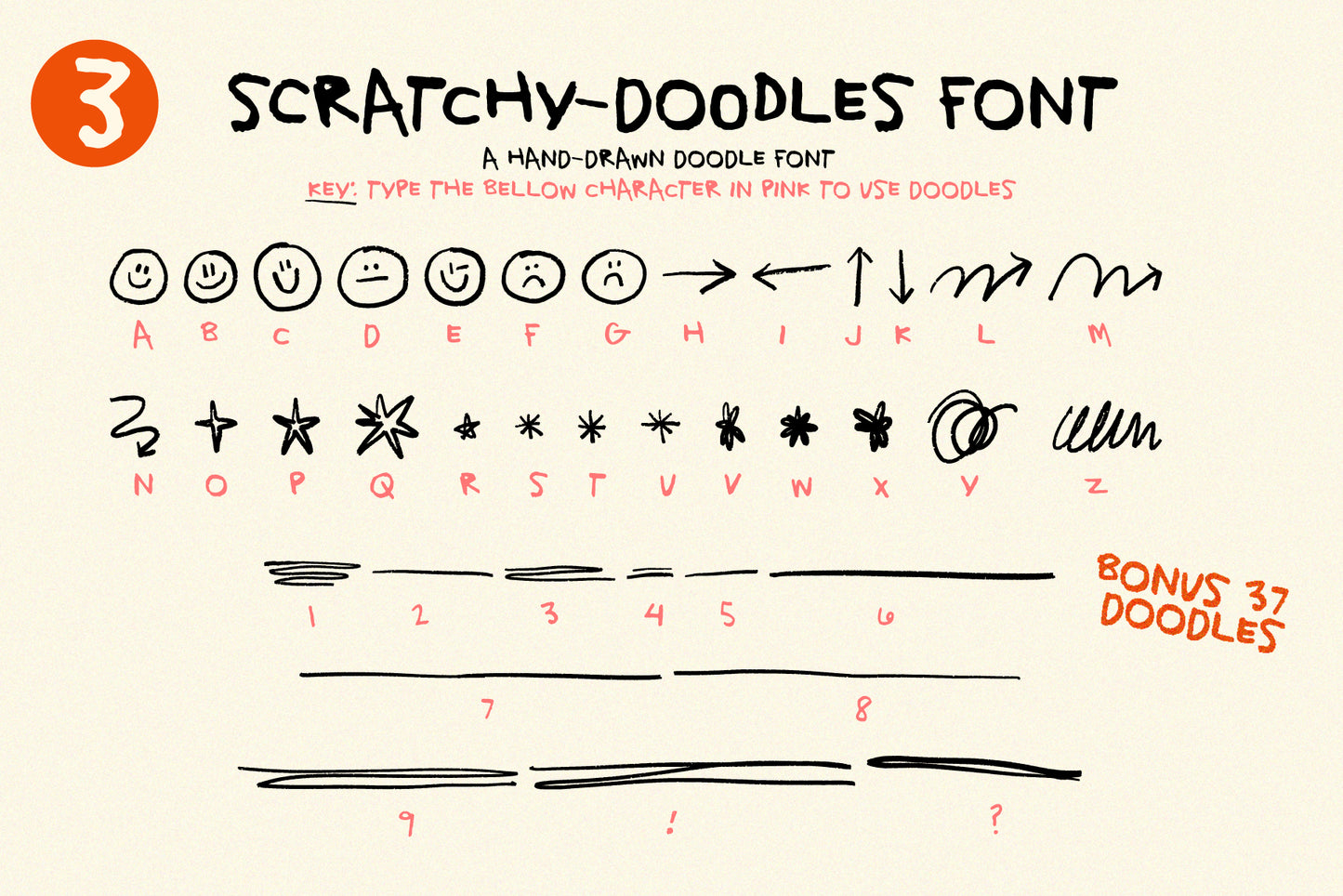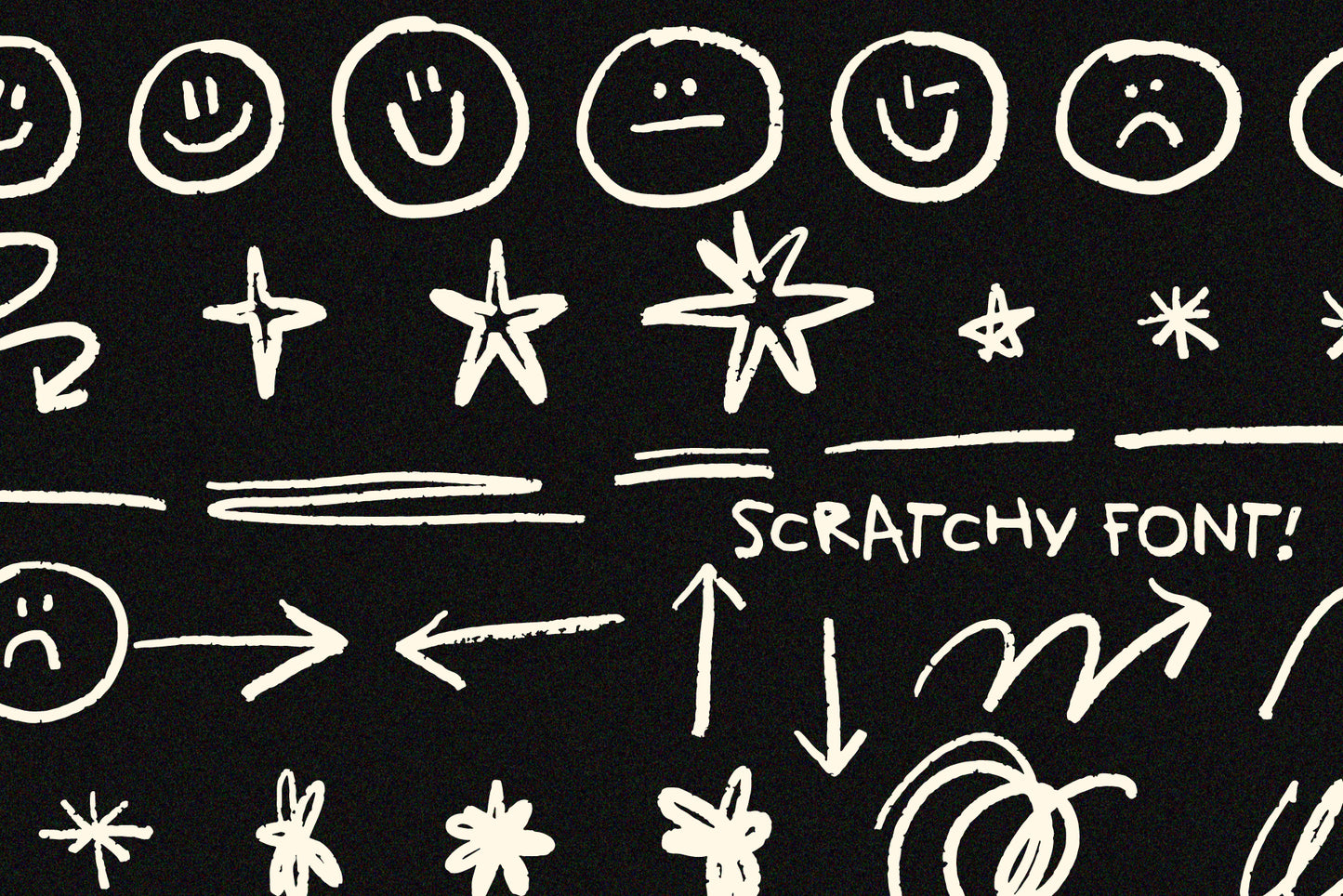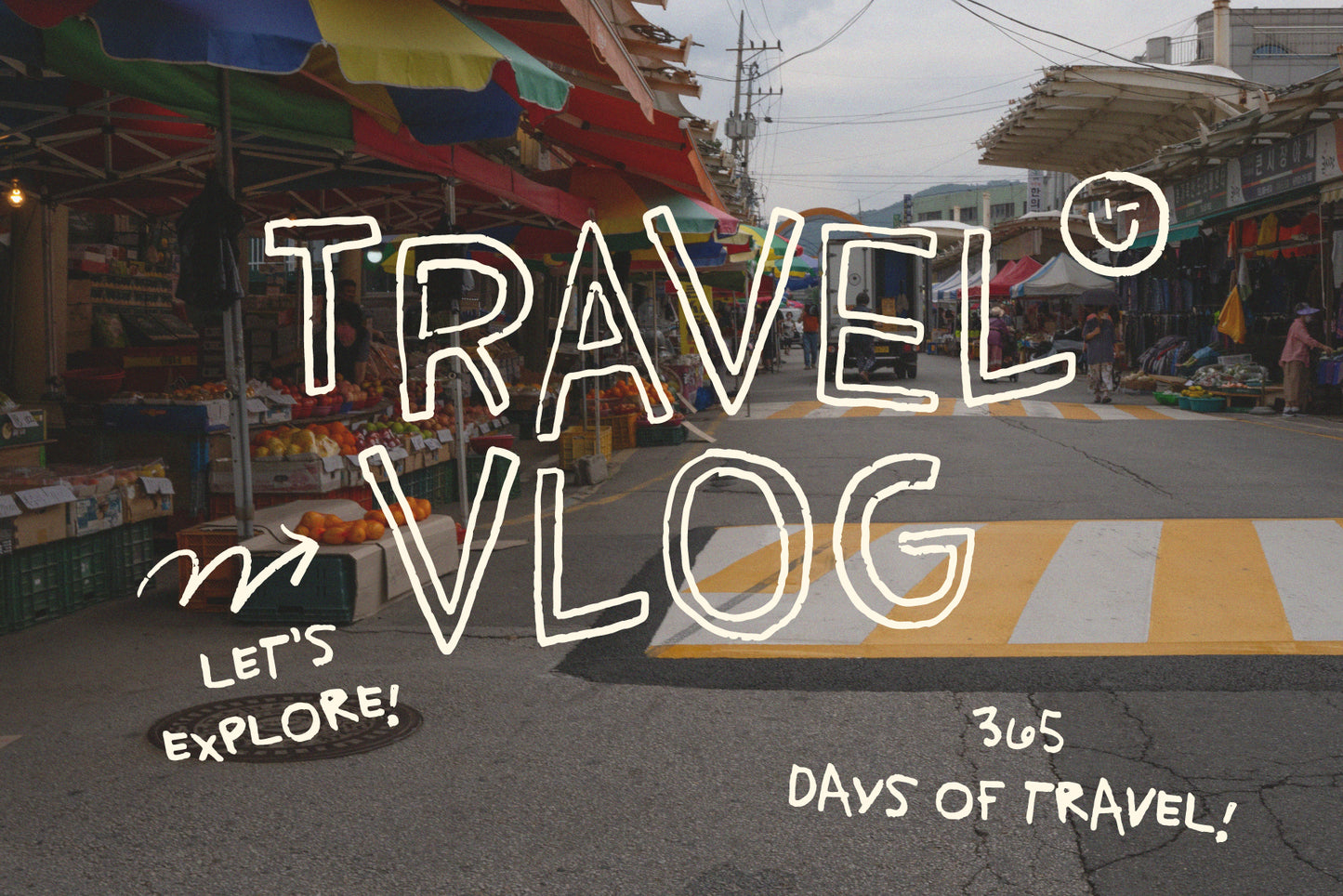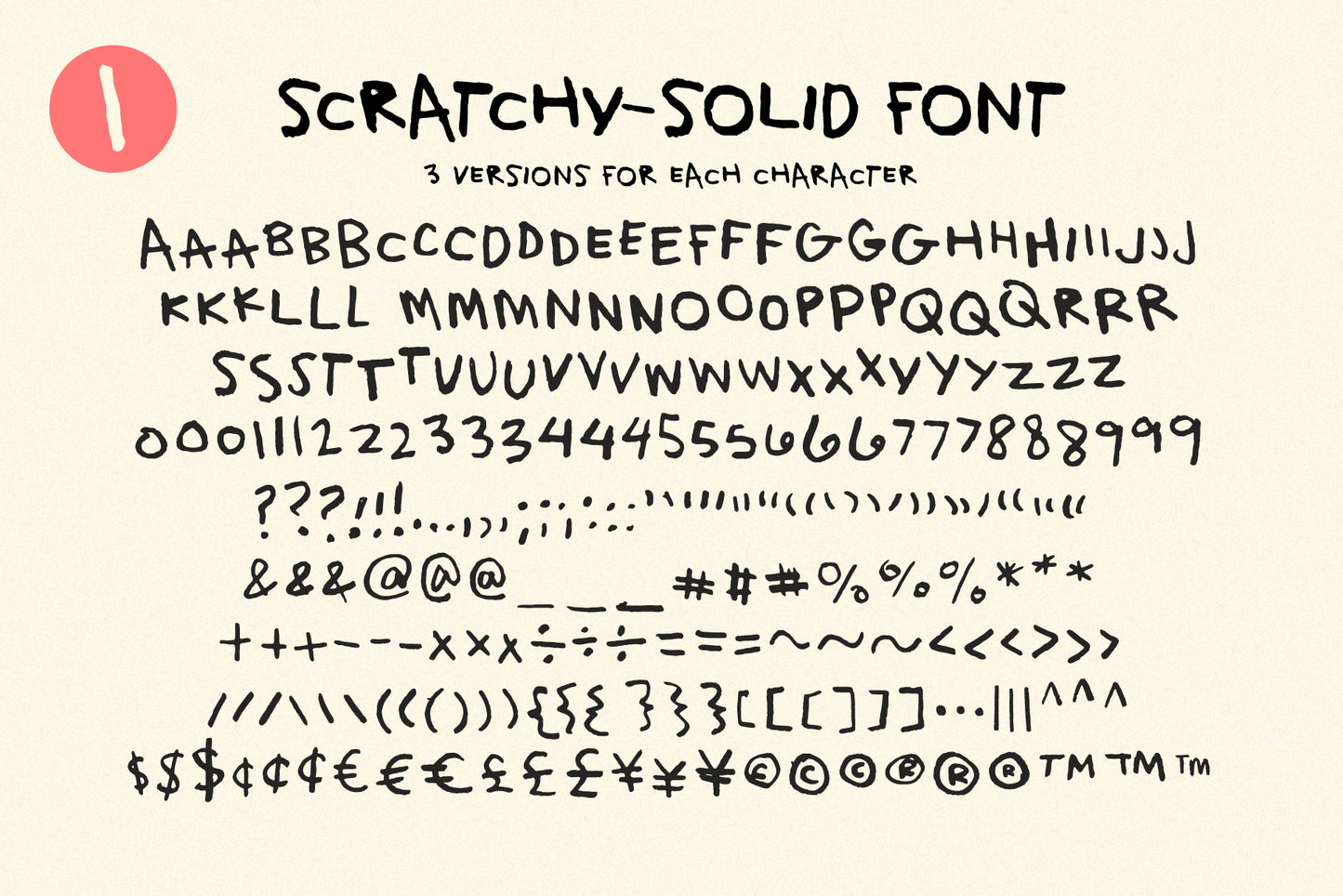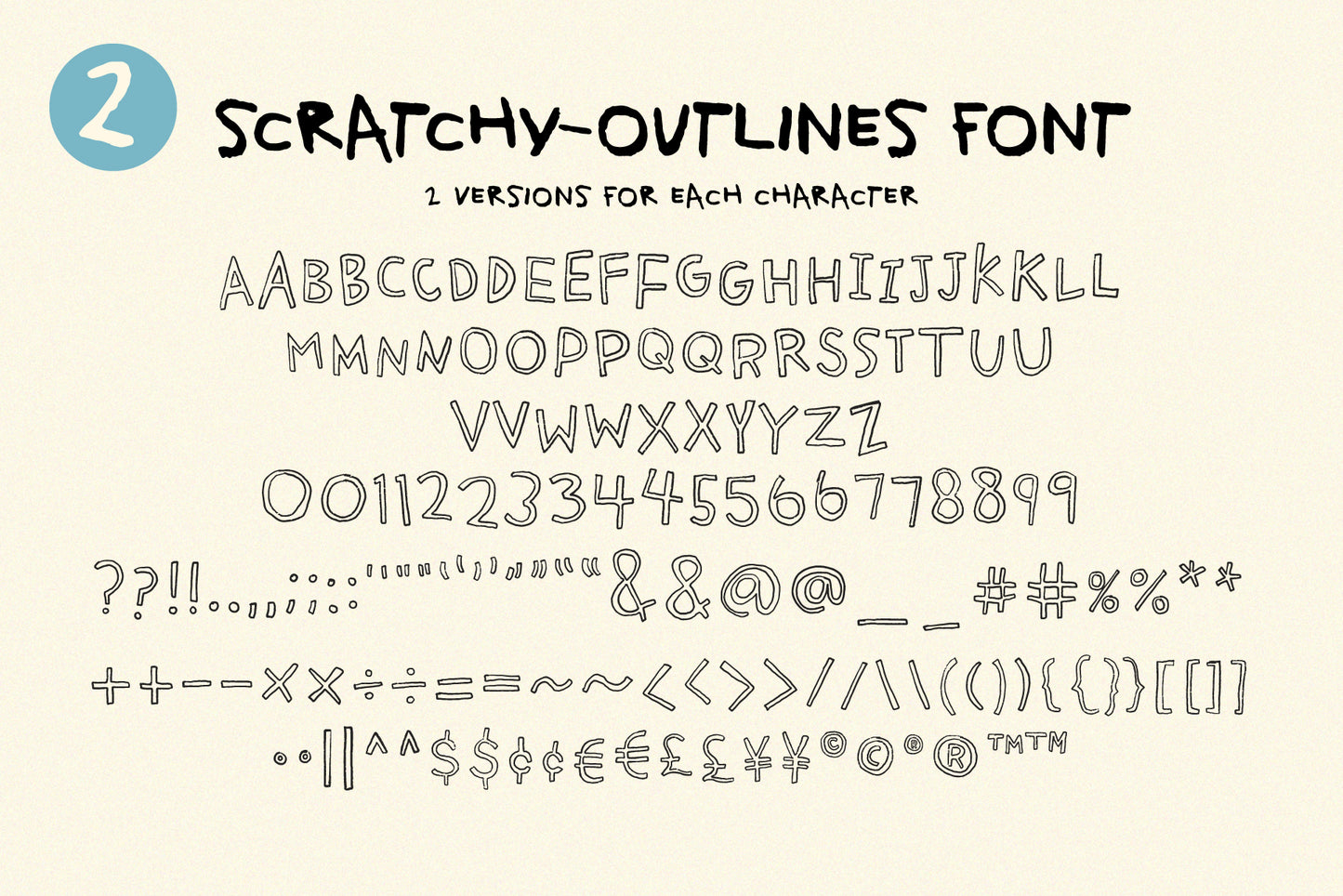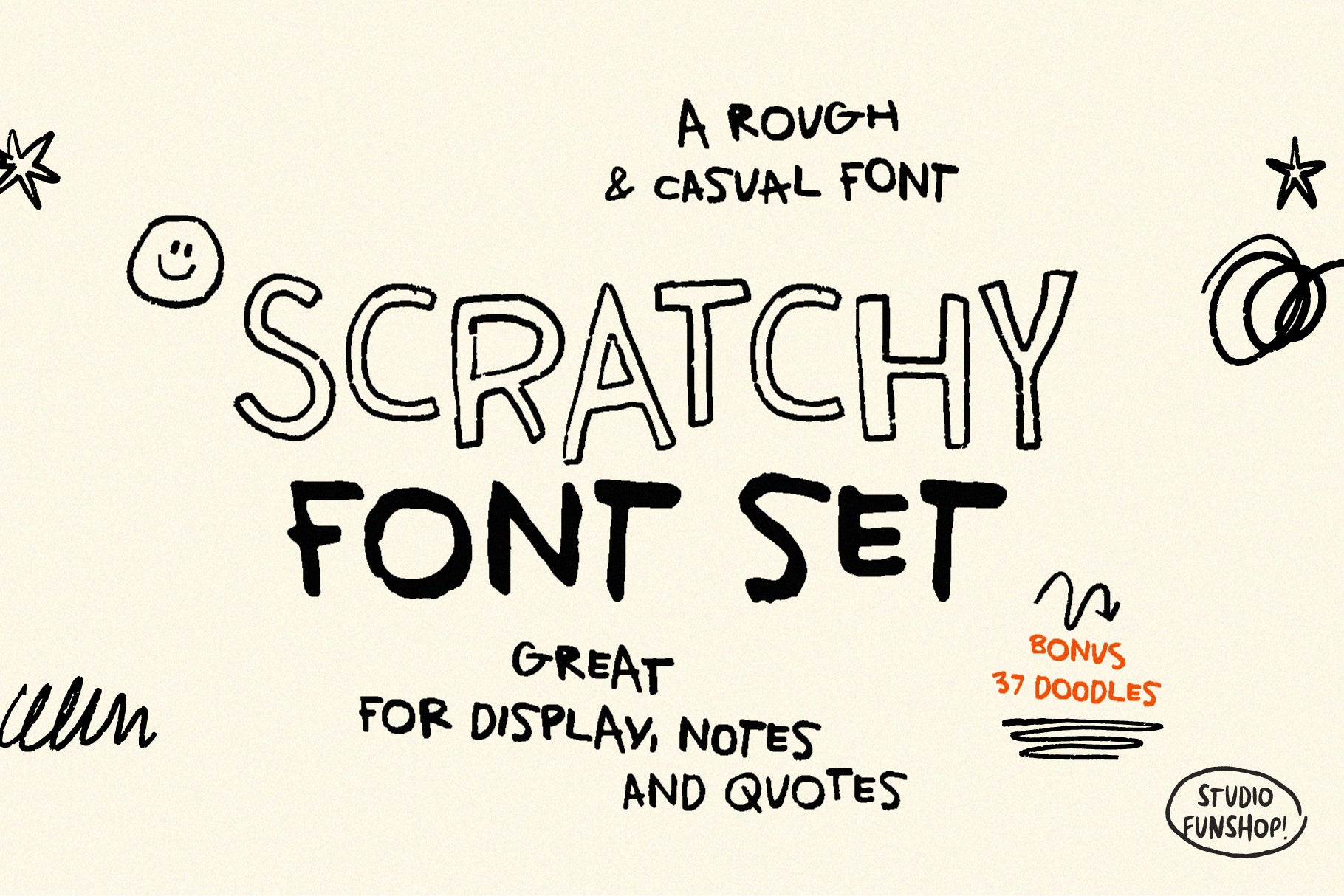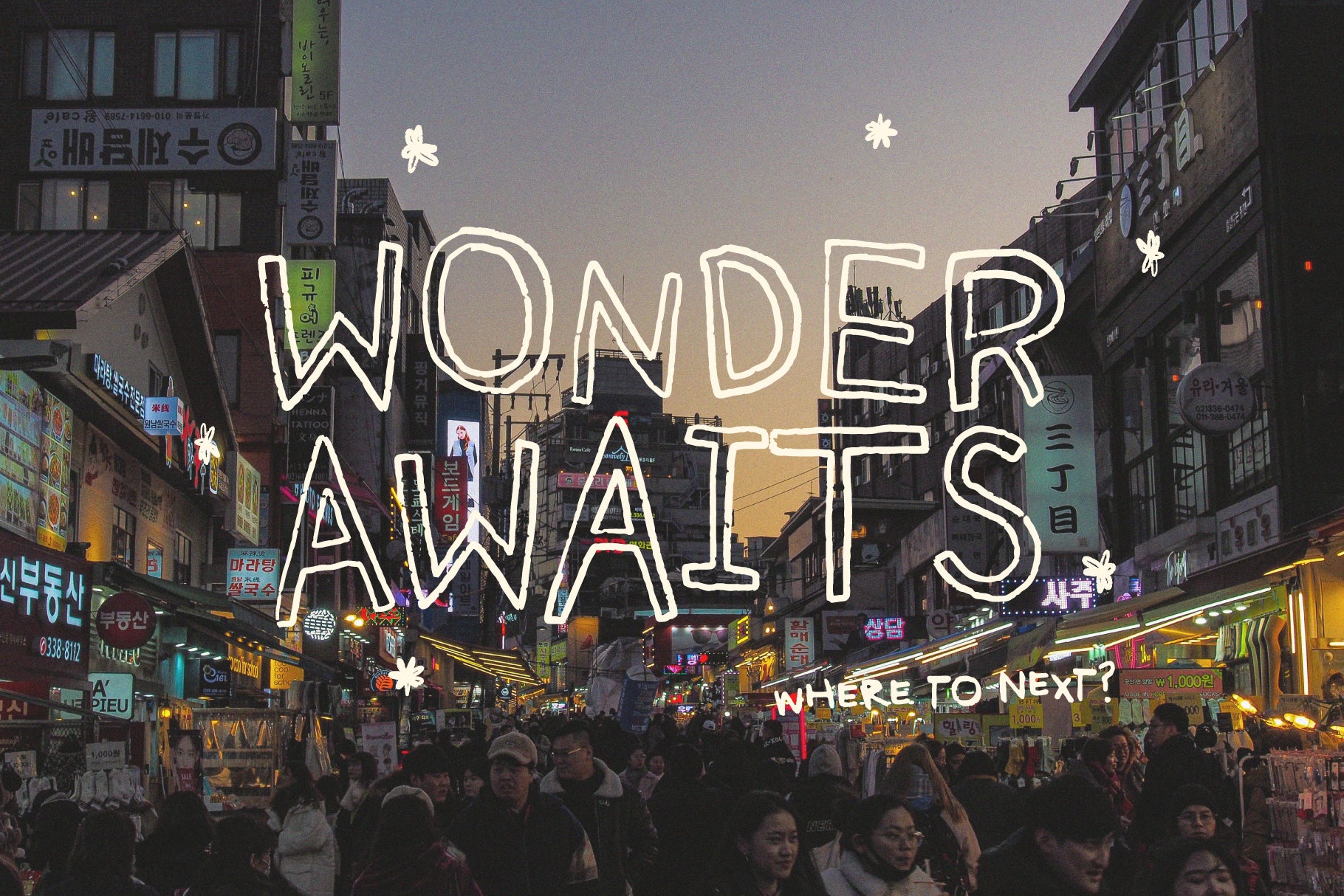
Scratchy Font Set - Rough Textured Handwriting
Scratchy is a rough and casual font with a whole lot of character. Mix and match these two fonts for a handmade touch.
Plus there are 1 to 2 hand-drawn alternates for each character! Oh, and don't forget the free bonus doodle font for extra handmade goodness!
Great for notes, quotes, art, display, and more! Enjoy!
What's in the font? (see slides!)
- Scratchy Outlines: Uppercase Letters A-Z! Numbers! Symbols! Punctuation! Alternates!
- Scratchy Solid: Uppercase Letters A-Z! Numbers! Symbols! Punctuation! Alternates!
- Bonus! Scratchy Doodle Font: 37 doodles!